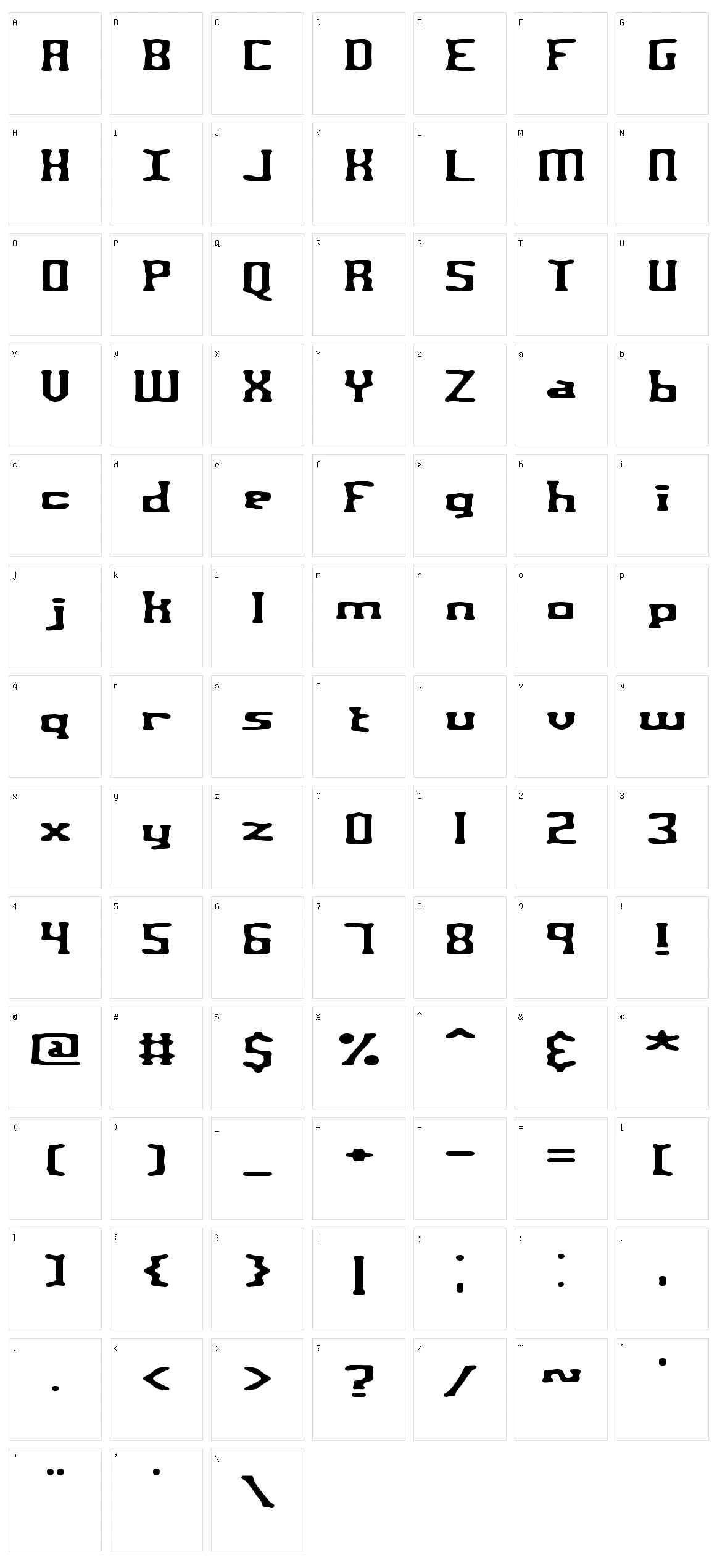
The free font Aspartame is carefully designed by Ænigma, showcasing a thoughtful balance of creativity and usability and falls under the Eroded font style. When you download the ZIP file, it contains only 26.21 KB of font files, making it lightweight and quick to download. Please review the license details below to understand permitted usage and distribution rights. If license information is not available, we recommend using this font for personal projects only or contacting the author directly for commercial usage permissions.
Aspartame Created by Brian Kent